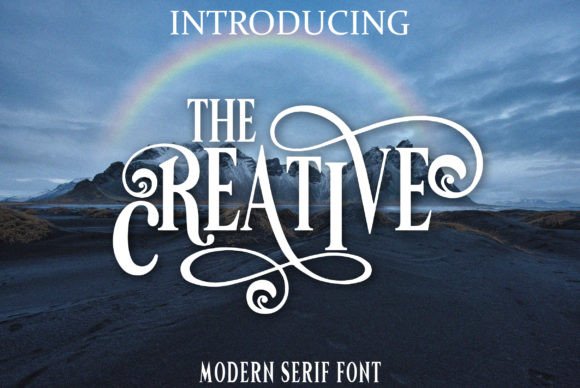
Introducing The Creative Font - the best font for iron on Cricut by Both Design Studio 89. This stunning serif font oozes luxury and glamour and is sure to catch the eye of anyone looking to add a touch of elegance to their project.
The Creative Font boasts bold and sharp letterforms that create a sense of power and prestige, making it the perfect choice for high-end branding and editorial design. It adds a touch of sophistication to any design, making it ideal for premium applications.
But that's not all. The Creative Font is also incredibly versatile, making it suitable for a wide range of projects. It's a timeless font that will stand the test of time and add a touch of class to any design.
And with PUA encoding, accessing all delightful glyphs and swashes is a breeze. This feature ensures that you have access to all the tools you need to make your design truly unique.